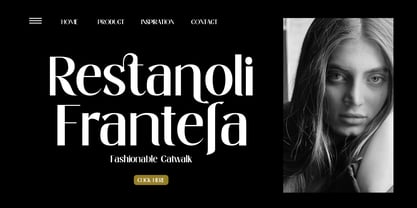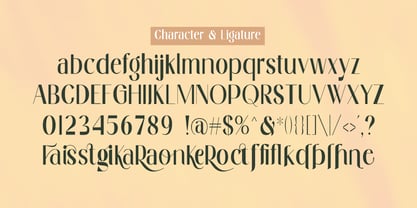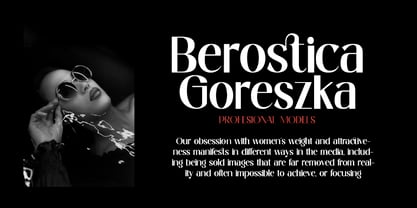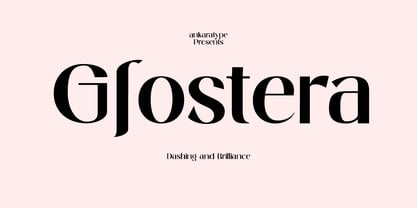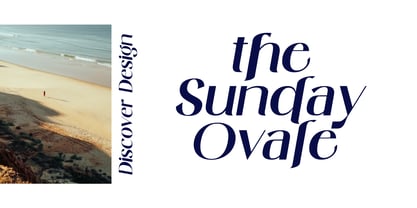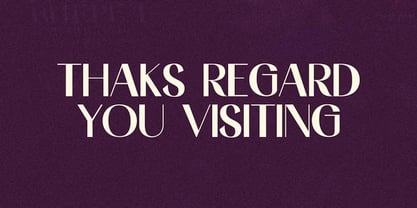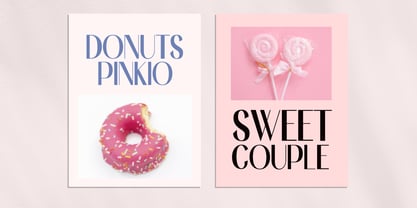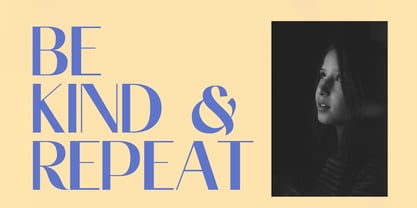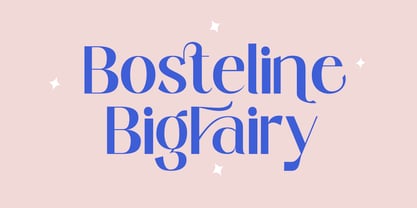
Glostera
by Saytype
The Glostera Font Family was designed by Sayuti Yuti and published by Saytype. Glostera contains 2 styles and family package options. More about this family
Glostera is a versatile font with clean and sleek sans and italaic shapes. This typeface is overall strong in conveying order and harmony between letters. Best used as Instagram, posters, web designs, magazines, logos, or products.